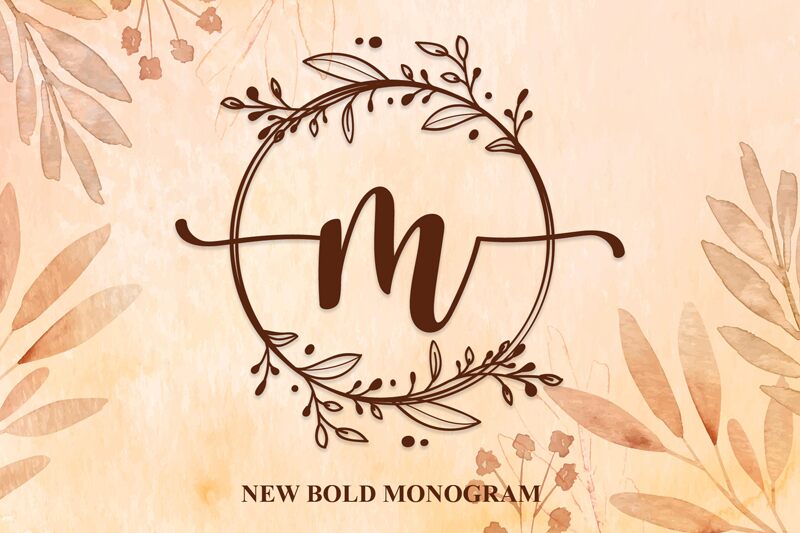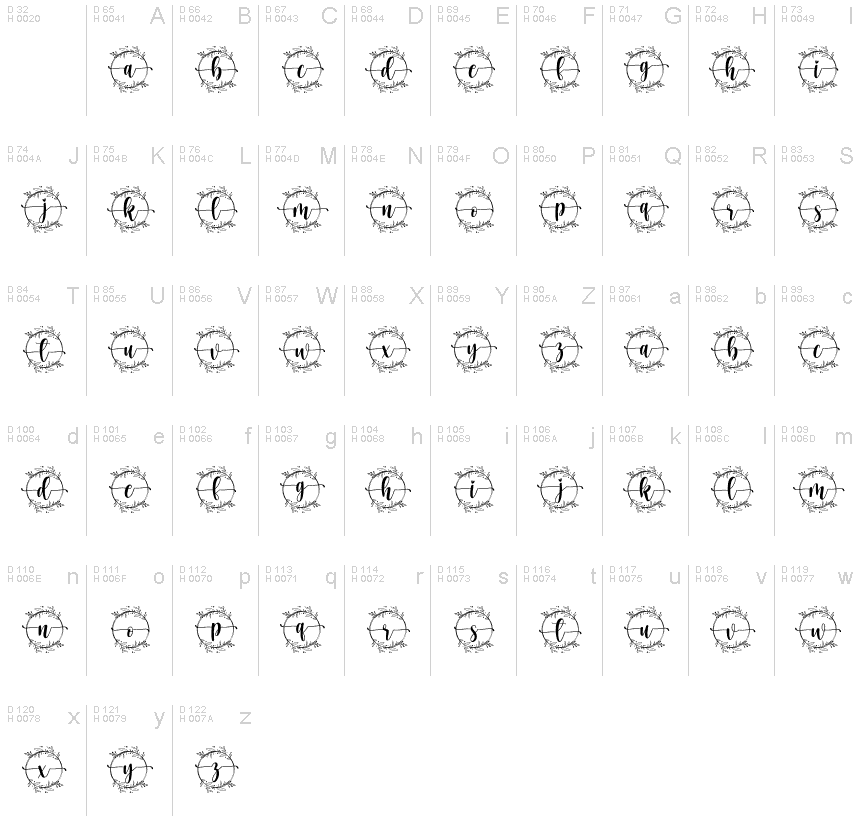
Wedding Monogram
Wedding Monogram by Scratchones is an embodiment of elegance and charm, specifically crafted to add a touch of personalization and sophistication to your special day. This decorative display font boasts a semi-light weight that exudes a delicate and refined presence. Its aesthetic appeal lies in the harmonious balance between whimsy and formality, making it an ideal choice for wedding invitations, bridal stationery, and bespoke event branding.
The font's decorative style is characterized by fluid lines and intricate details that suggest a handcrafted quality. Wedding Monogram's versatility shines through its potential to enrich various creative projects, from custom monograms to social media graphics that require a personalized flair. Scratchones has designed this font with an artistic touch that resonates with those seeking to infuse their designs with romance and timeless beauty.